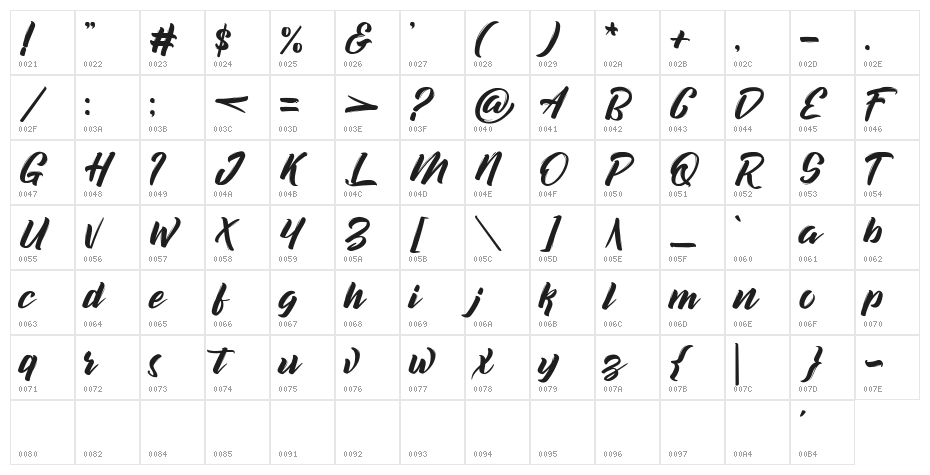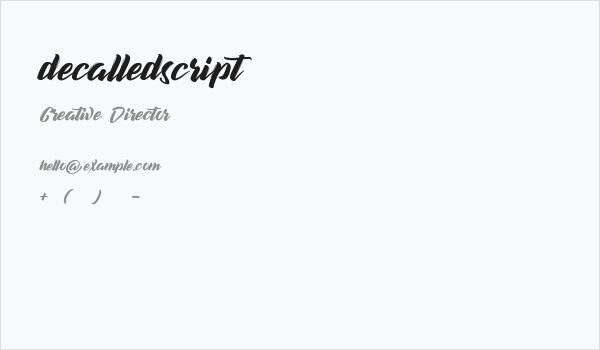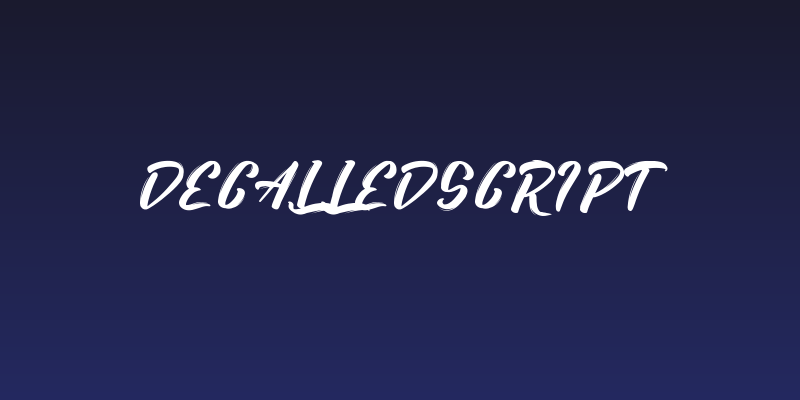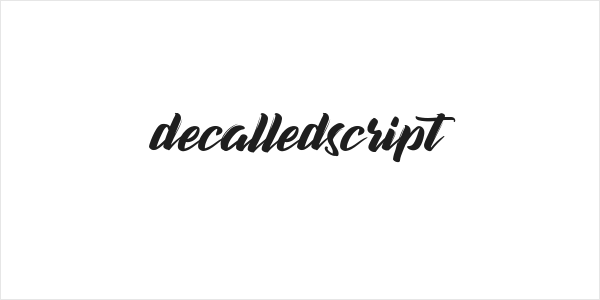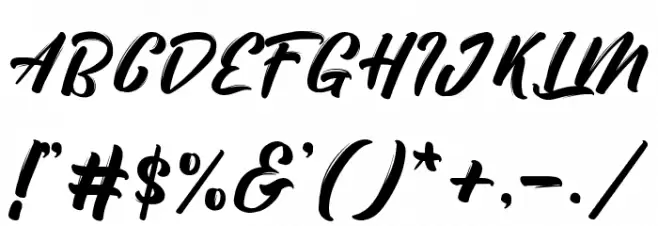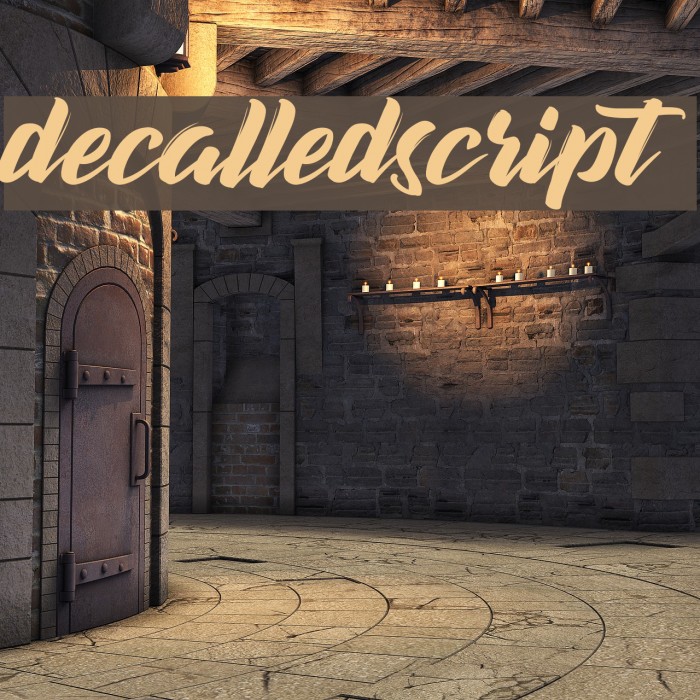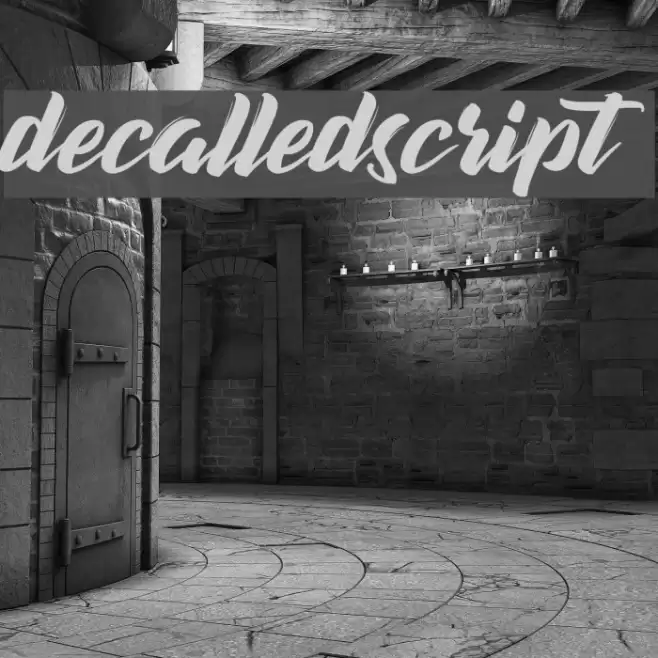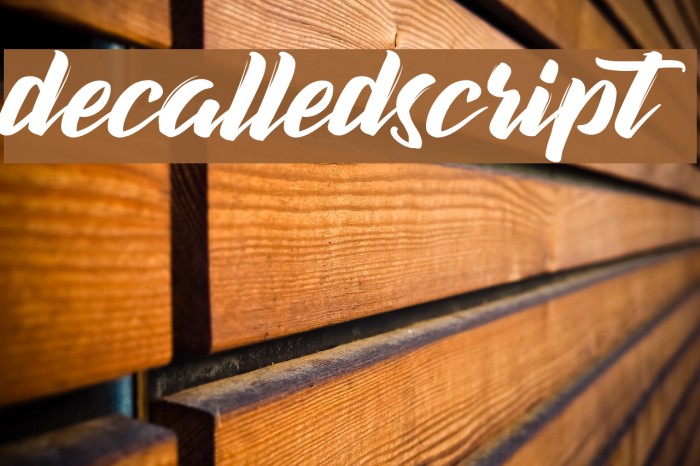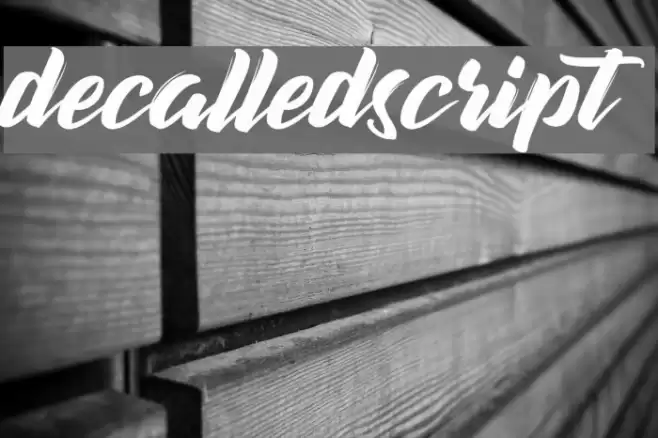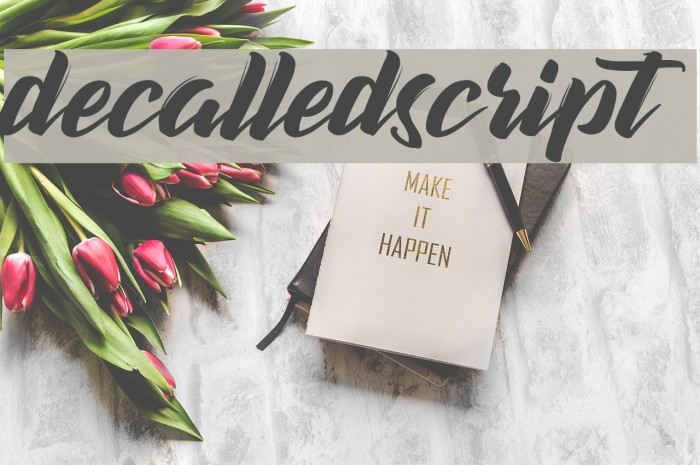
decalledscript Font
decalledscript Description
This font exudes a bold and dynamic script style, characterized by its fluid and cursive letterforms. The strokes are thick and expressive, giving a sense of movement and energy. Each character is crafted with a sense of spontaneity, yet maintains a consistent flow throughout the alphabet. The uppercase letters are particularly striking, with sweeping curves and dramatic flourishes, while the lowercase letters complement them with a slightly more restrained elegance. The numbers and special characters follow the same stylistic cues, ensuring a cohesive appearance across all glyphs. This font is ideal for projects that require a touch of personality and flair, such as branding, invitations, or artistic designs.
| Use Case | Logos, Headlines, Artistic designs |
| Proposed Projects | Ideal for branding, invitations, artistic designs, and any project requiring a touch of personality. |